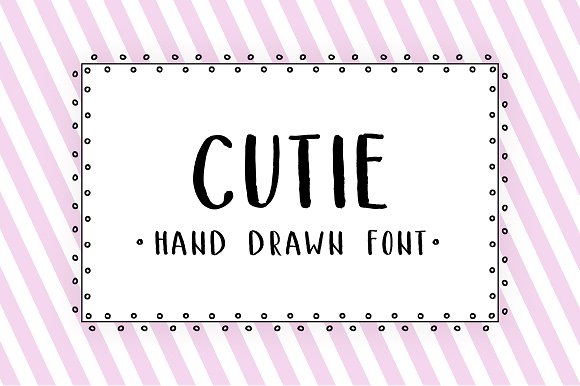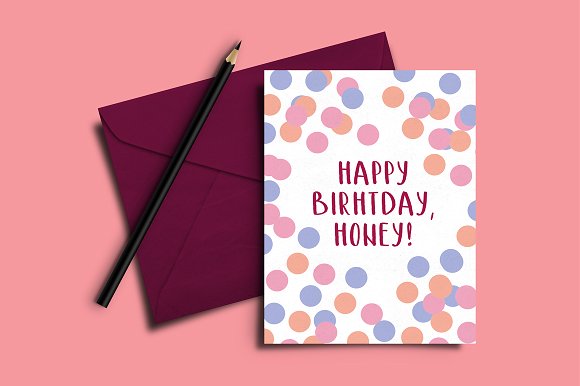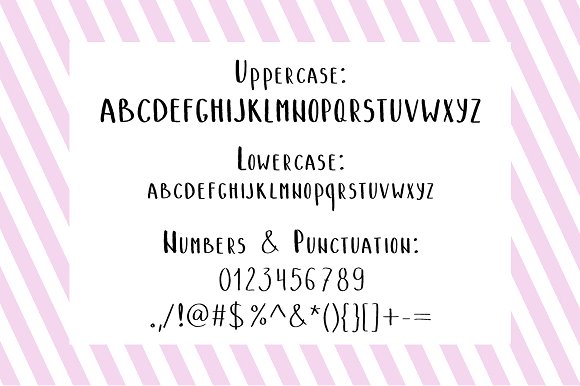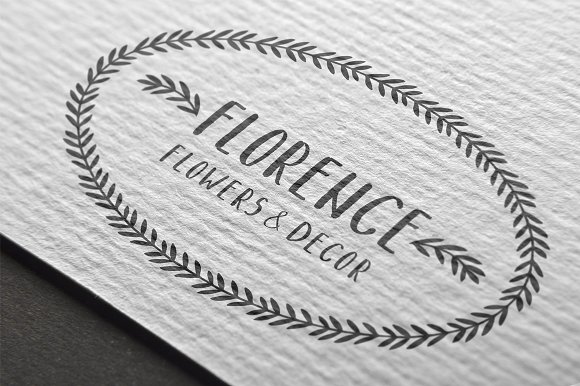
Cutie – hand drawn font
Meet my new and really cute, hand drawn TrueType font – CUTIE! This hand drawn font contains capital, lowercase letters, numbers and most characters from your keyboard. It’s perfect for modern products design, logo, t-shirt prints, postcards and so on.